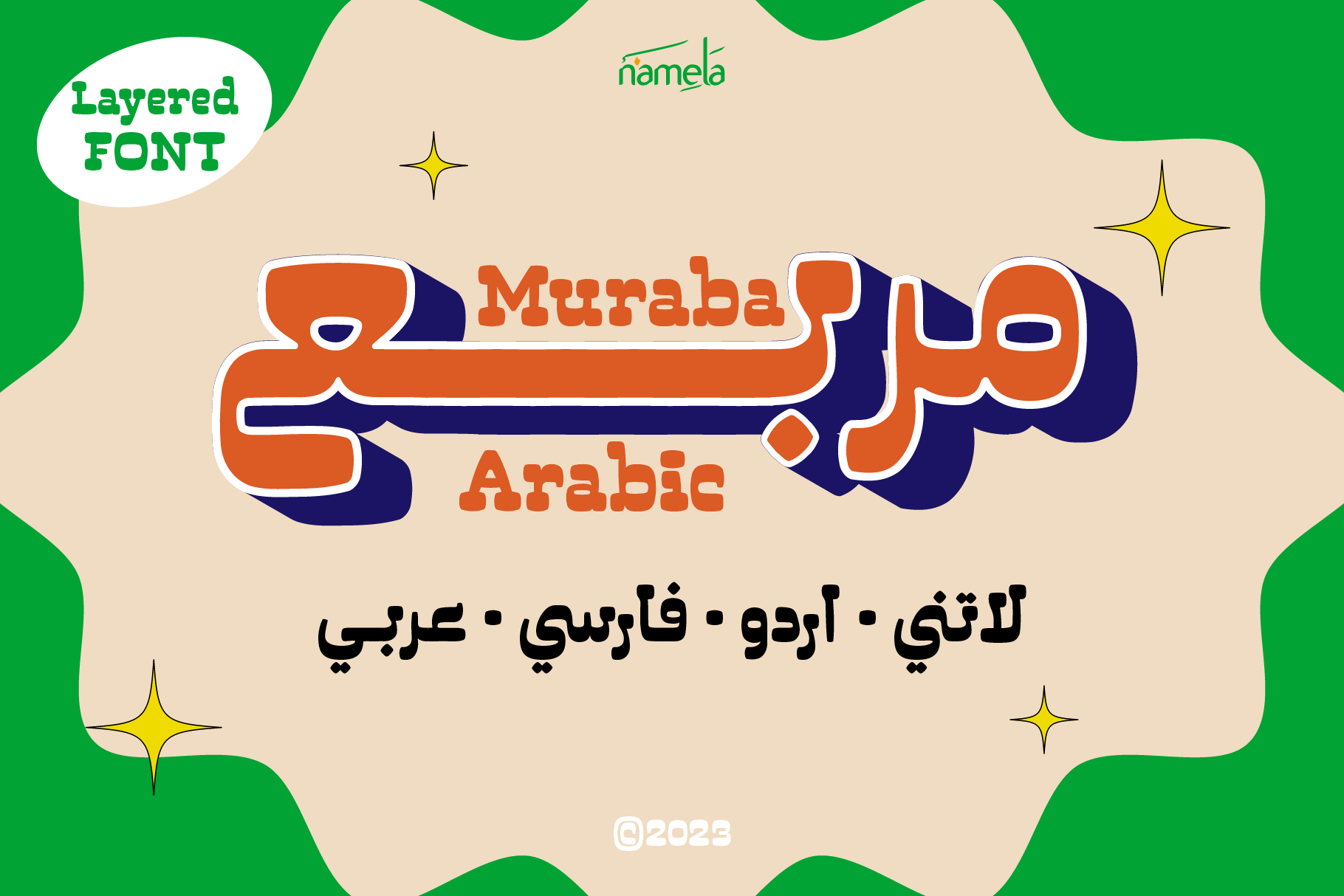
Muraba Arabic - Arabic Display Font
Muraba Latin & Arabic Font combines a bold, modern style with vintage charm to create an elegant, ageless look. Thick, squared-off serifs on each character are painstakingly created, drawing the eye and lending a touch of sophisticated decoration. Thoughtfully enhanced with additional Arabic glyphs to facilitate international versatility and creativity. It expands its reach to cater to a broader audience, encompassing Arabic, Urdu, Kurdish, Farsi, and Jawi scripts. Whether applied to display text, headers, or logos, this typeface is distinctive and makes a statement in any artistic project.